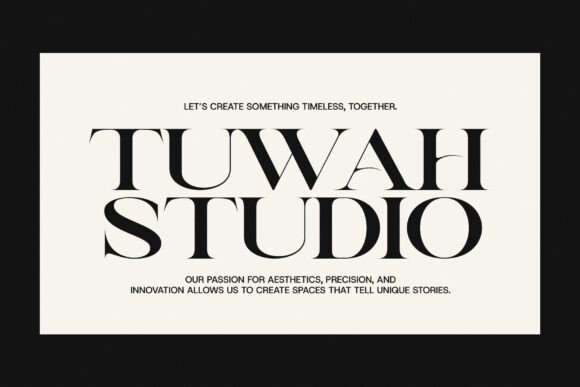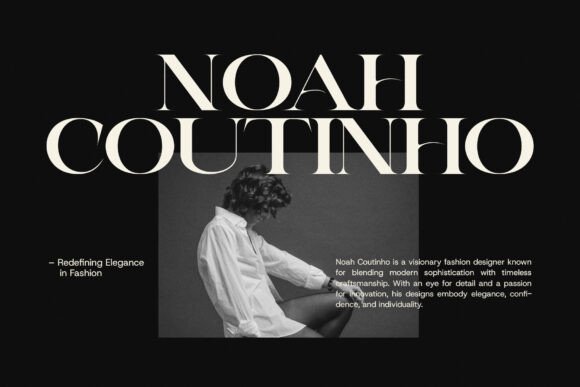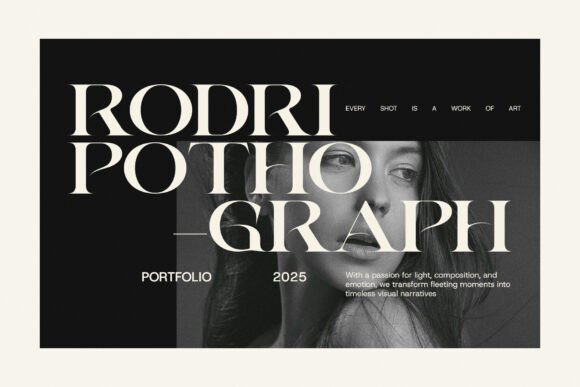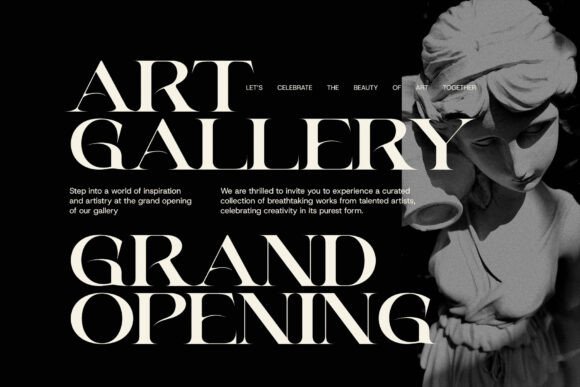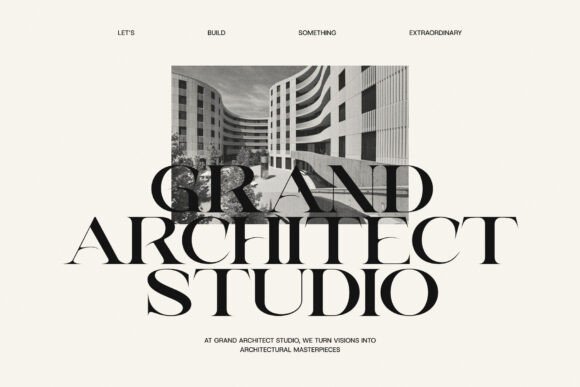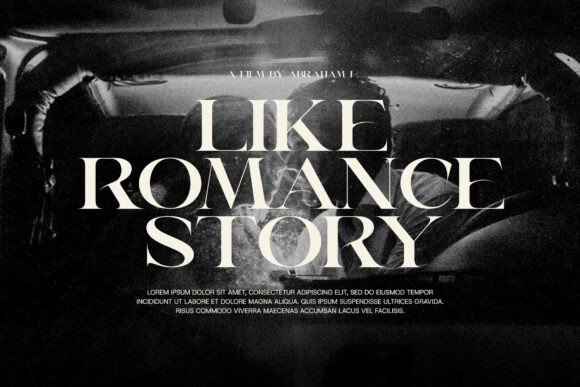
Discover the Elegance of Gian Beart Font: Elevate Your Designs with Sophistication
In the world of typography, a font can make all the difference in the success of a design project. For designers and crafters seeking to add a touch of sophistication and charm to their work, the Gian Beart Font, also known as Beart Elegant Serif Font, stands out as a captivating modern serif typeface. This elegant font is designed with meticulous attention to detail, combining timeless elegance with a contemporary flair that makes it perfect for a wide range of design projects.
Unique Characteristics of Beart Elegant Serif Font
What sets Beart apart from other serif fonts is its unique ligatures and alternate letterforms. These distinctive features give Beart a refined and polished character, allowing designers to create visually stunning and cohesive designs. The font’s smooth curves and sharp serifs create an impressive balance, adding a sense of class and readability to both large headlines and body text.
Versatility and Adaptability
Beart Elegant Serif Font is incredibly versatile and adaptable, making it suitable for various applications. Whether you’re working on luxury branding, upscale websites, high-end magazines, or product packaging, Beart elevates any visual identity with its clean and stylish appearance. Its elegant design makes it perfect for conveying a sense of sophistication and modernity, capturing the attention of your audience.
Ideal Applications for Beart Font
Beart Font is ideal for a variety of design projects, including:
- Luxury Branding: Create a lasting impression with Beart’s sophisticated and elegant design, perfect for high-end brands.
- Upscale Websites: Enhance your website’s visual identity with Beart’s clean and stylish appearance, ensuring a premium user experience.
- High-End Magazines: Add a touch of elegance to your magazine’s typography, making it stand out in the industry.
- Product Packaging: Make your product packaging shine with Beart’s refined and polished character, perfect for premium products.
- Boutique Logos: Create a unique and memorable logo for your boutique or luxury business with Beart’s distinctive features.
- Stylish Invitations: Add a touch of sophistication to your invitations, making them perfect for special occasions.
- Advertisements: Create eye-catching advertisements for premium products with Beart’s elegant and modern design.
Why Choose Beart Elegant Serif Font?
Beart Elegant Serif Font offers a unique combination of elegance, sophistication, and versatility, making it the perfect choice for designers and crafters. Here are some reasons why you should consider Beart for your next design project:
- Timeless Elegance: Beart’s classic design ensures that your work will remain stylish and relevant for years to come.
- Contemporary Flair: The font’s modern twist makes it perfect for designers seeking to create visually stunning and cohesive designs.
- Readability: Beart’s smooth curves and sharp serifs create an impressive balance, ensuring excellent readability for both large headlines and body text.
- Unique Character: Beart’s distinctive ligatures and alternate letterforms give your designs a refined and polished look.
In conclusion, the Gian Beart Font, or Beart Elegant Serif Font, is a captivating modern serif typeface that exudes sophistication and charm. Its unique characteristics, versatility, and adaptability make it the perfect choice for various design projects. Whether you’re a designer or crafter, Beart Font is sure to elevate your work and capture the attention of your audience. With its timeless elegance and contemporary flair, Beart is an excellent addition to any design project.